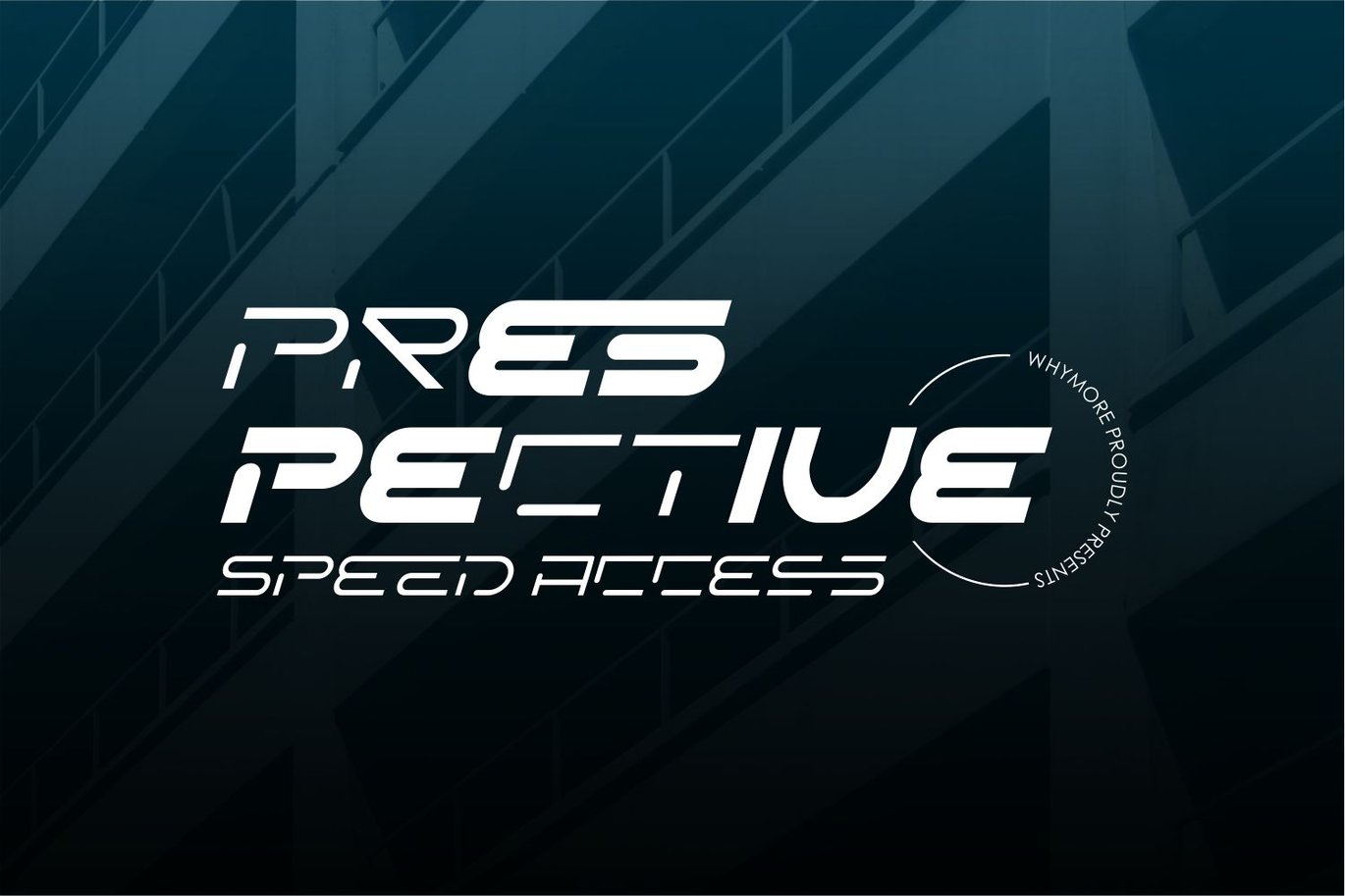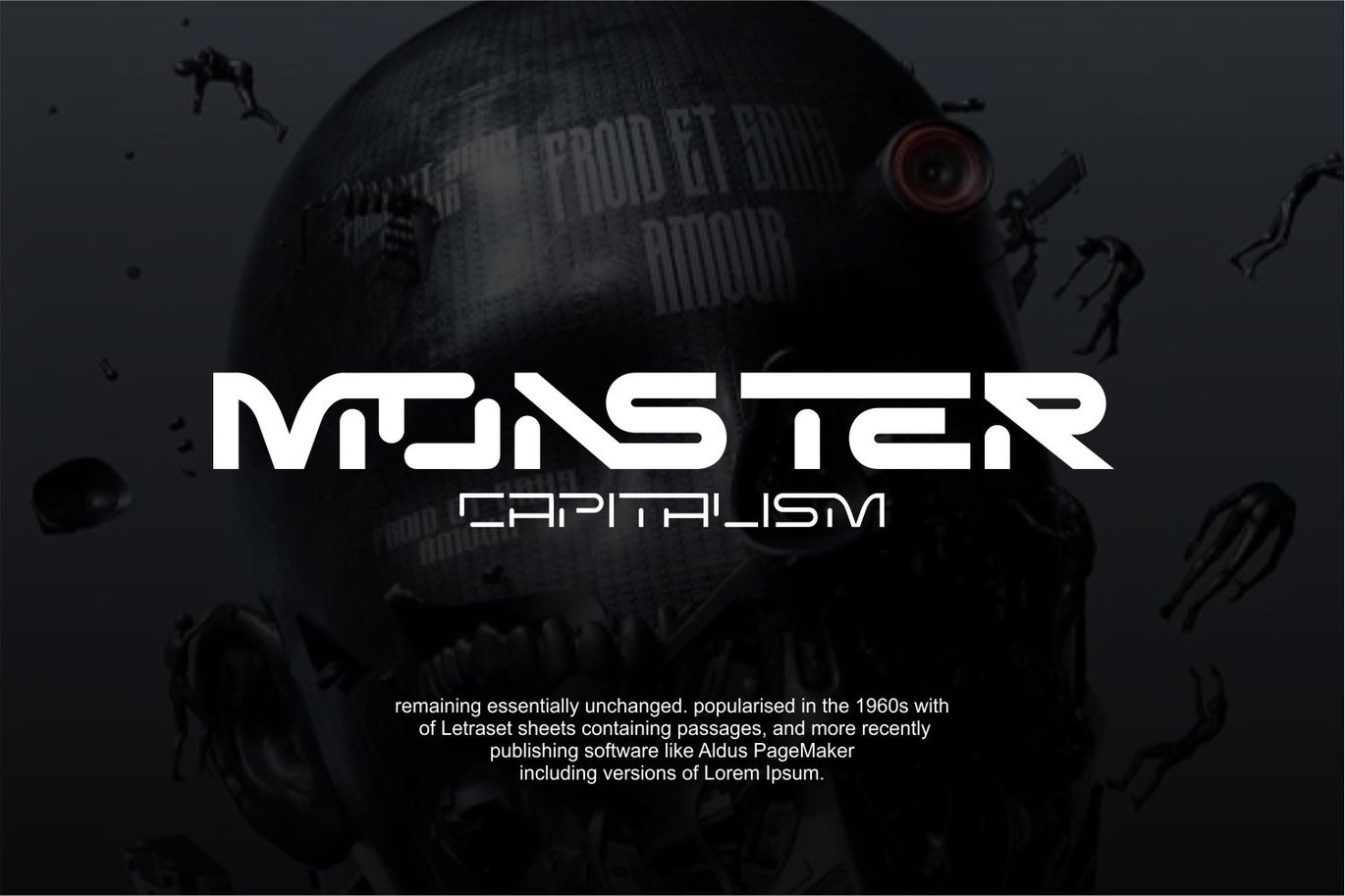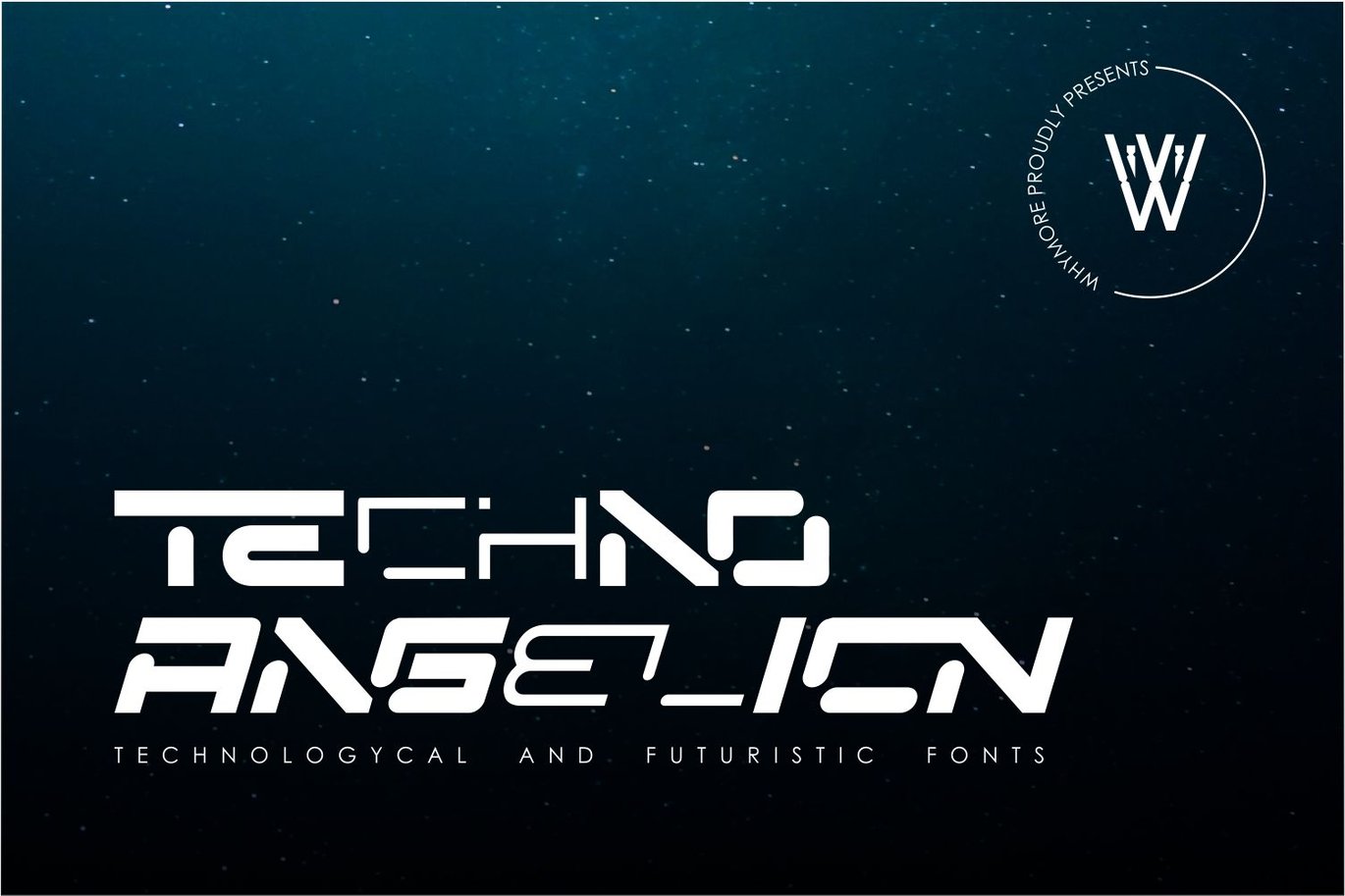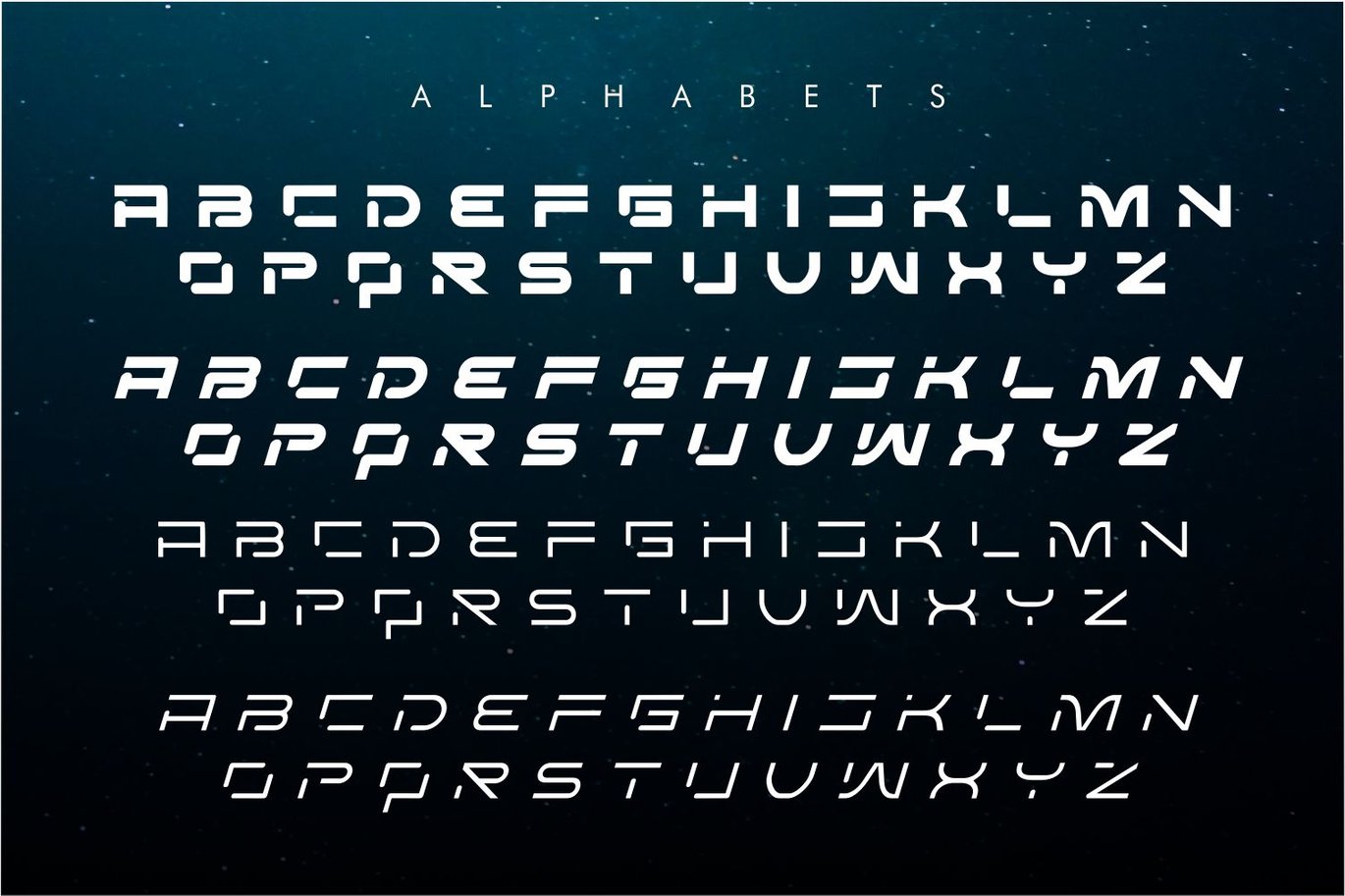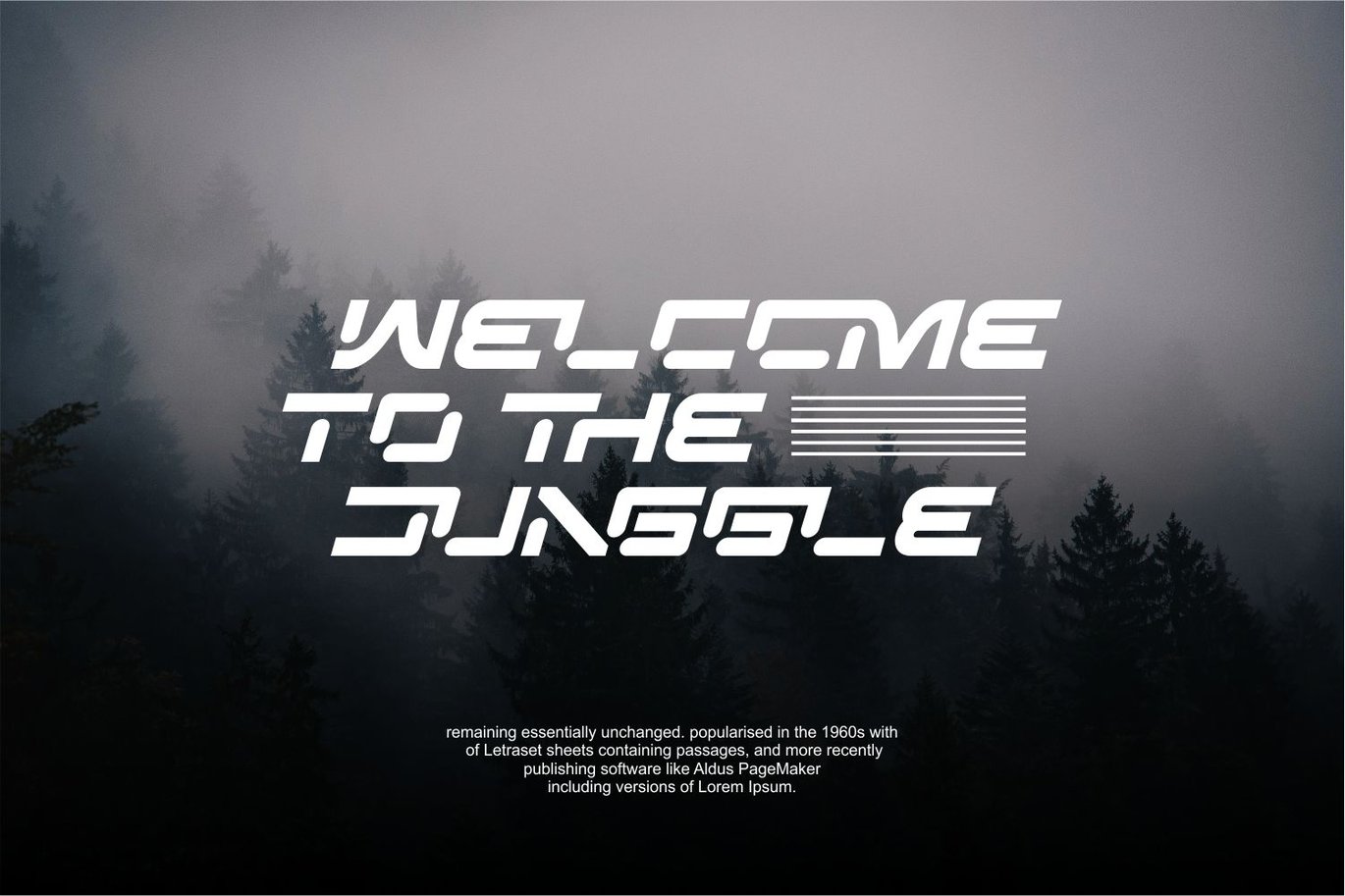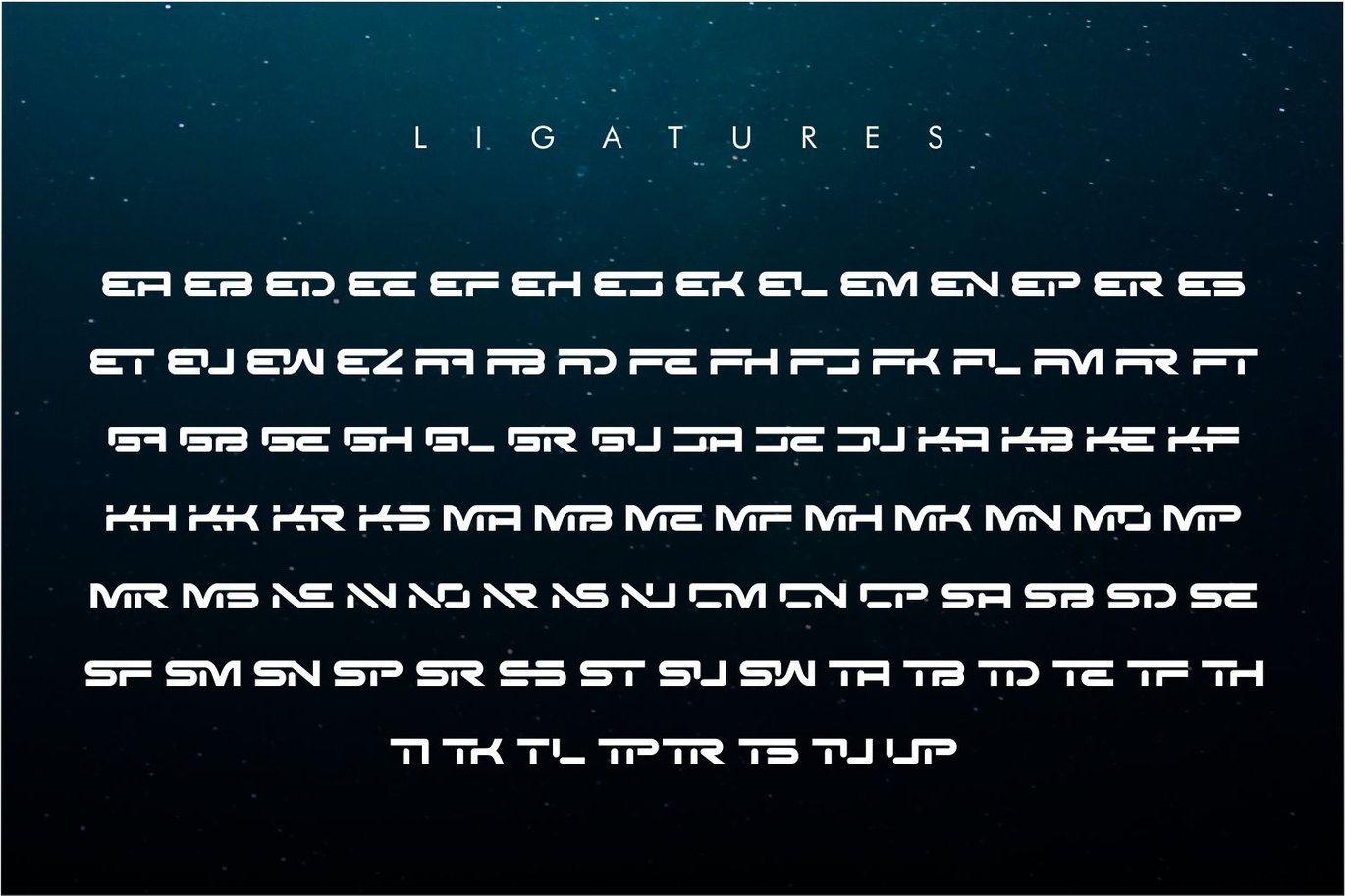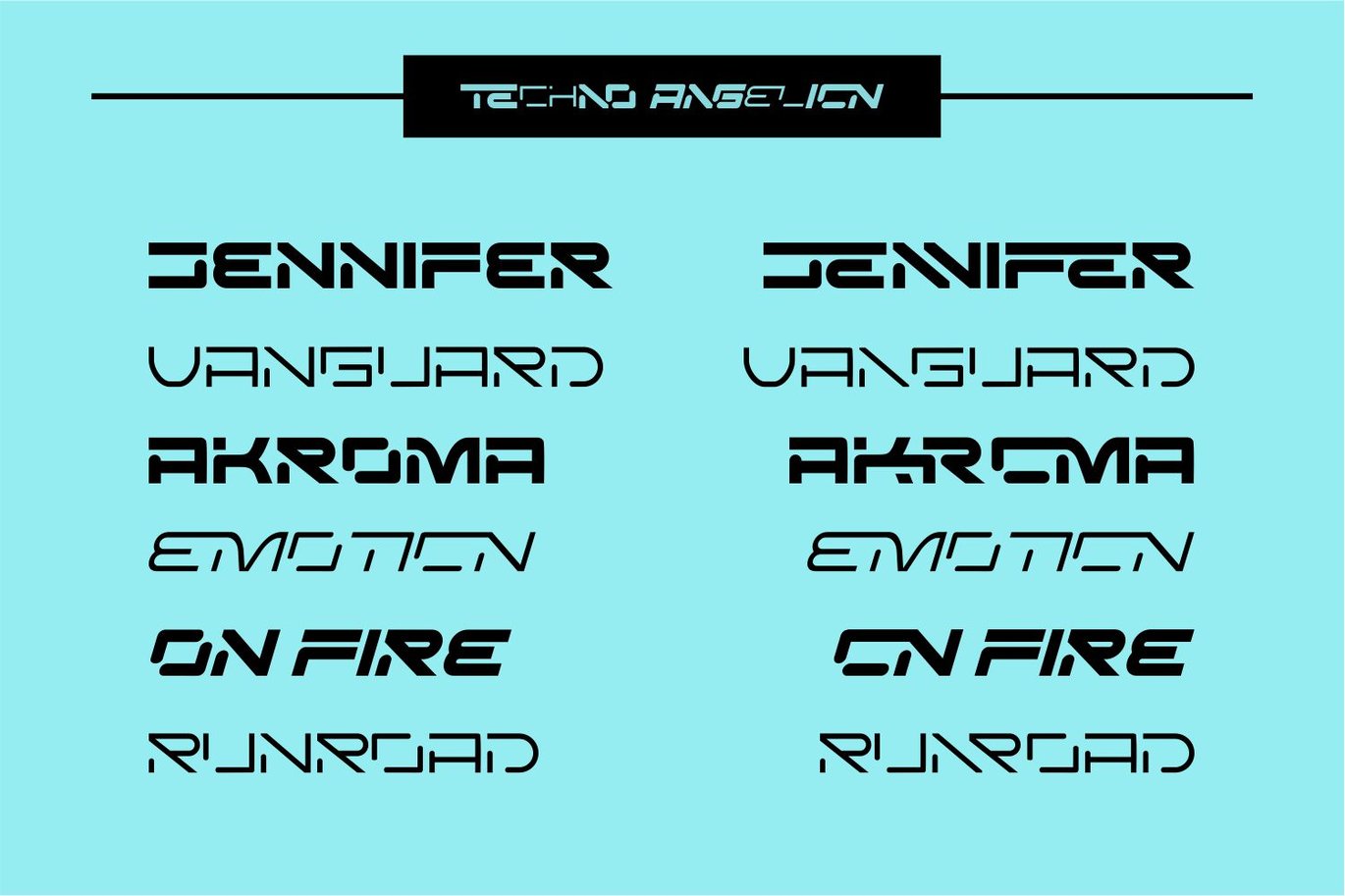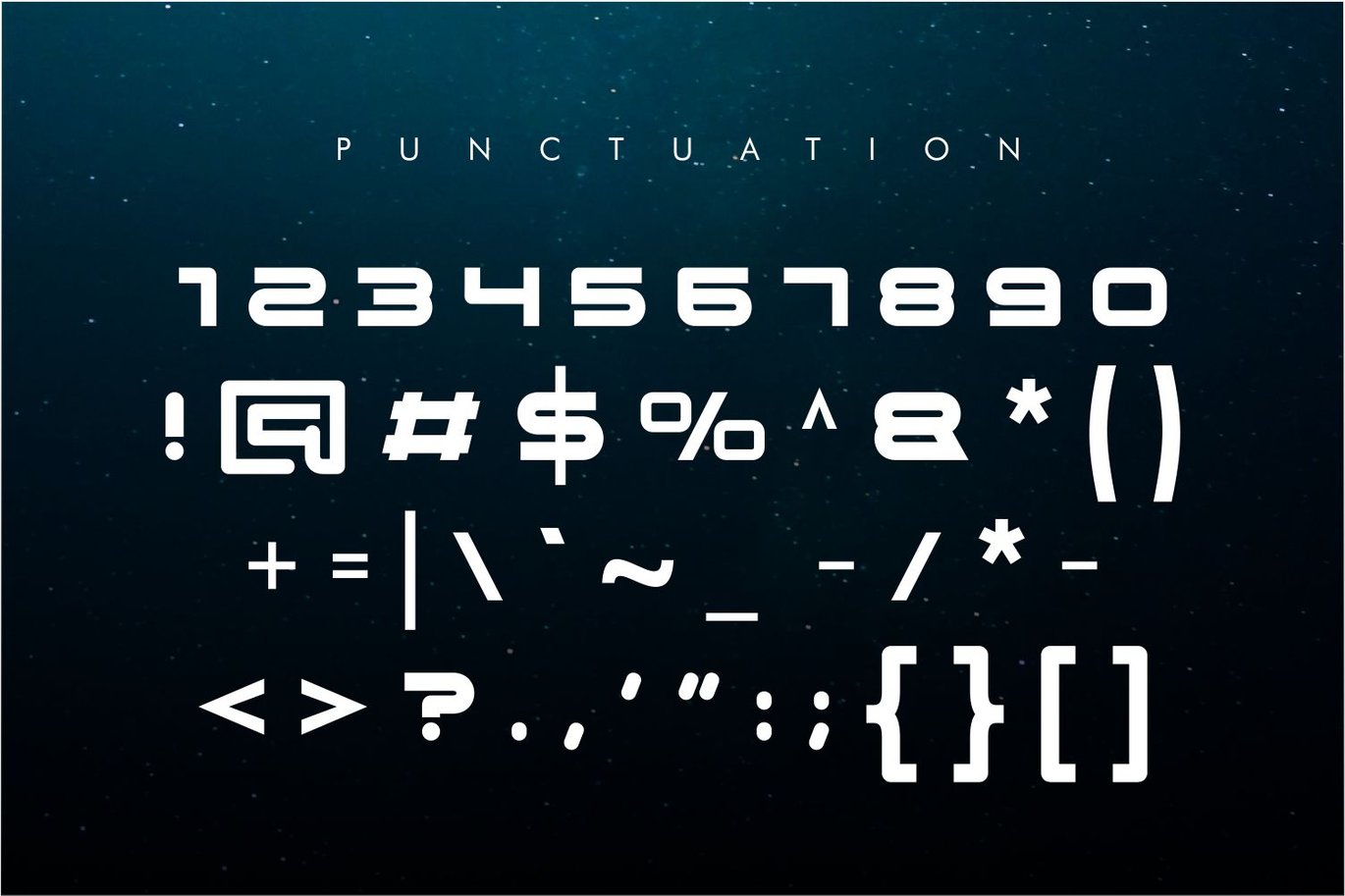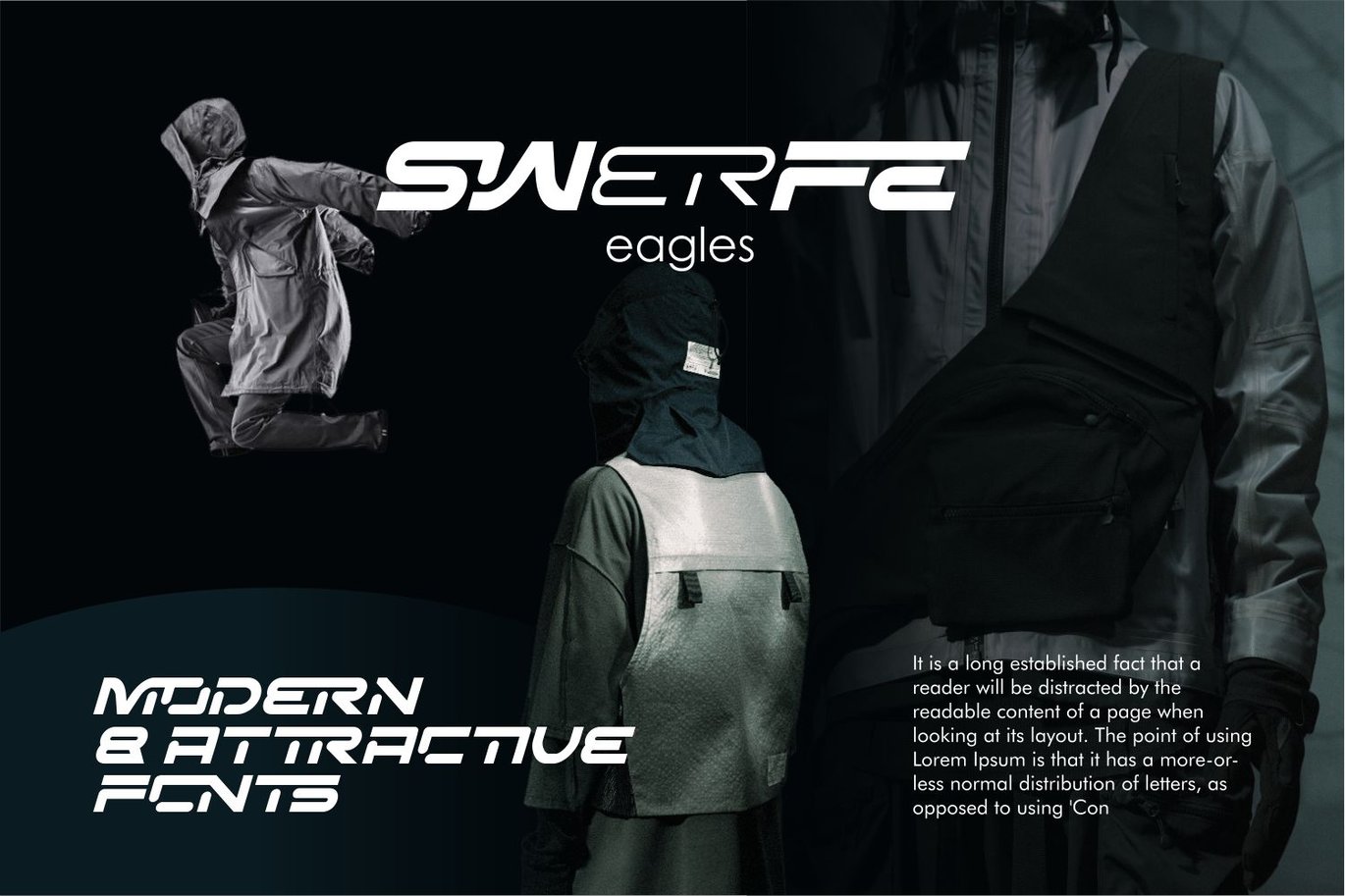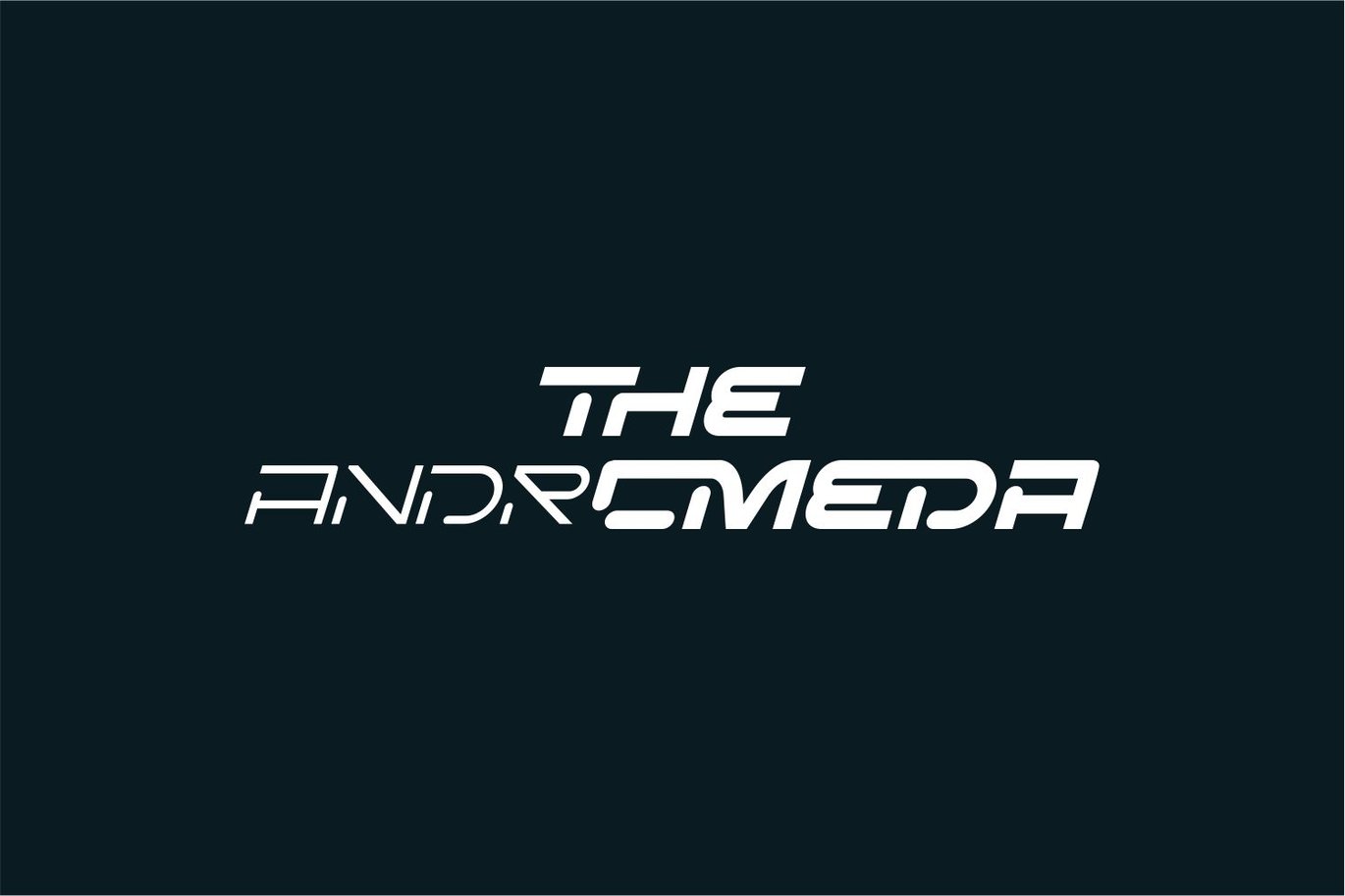
Techno Angelion |Futuristic Font
Ever seen a futuristic font with an interesting ligature?
Well, TECHNO ANGELION will brings you to the next level of a stunning typeface that can showcase elegance but with a minimalist form.
The curves at each end of the letter ornament illustrate that this font is very ready to live in the present and the future.
Minimalist yet luxurious and classy. Whether used for branding, Design templates, in the form of invitations, calendars, posters, headlines, brochures, promotional tools or editorial designs, TECHNO ANGELION was created to meet the visual needs of a technological development.
The versatile nature of the TECHNO ANGELION font makes it suitable for headlines, logos and lettering. Its legibility ensures clear communication yet invites a sharp eye catch. TECHNO ANGELION is the perfect choice for those looking for a typeface that embodies the Future and sophistication that will not be limited by time. With a futuristic style but with a Y2k sytles feel, it can bring you to a different visual work.